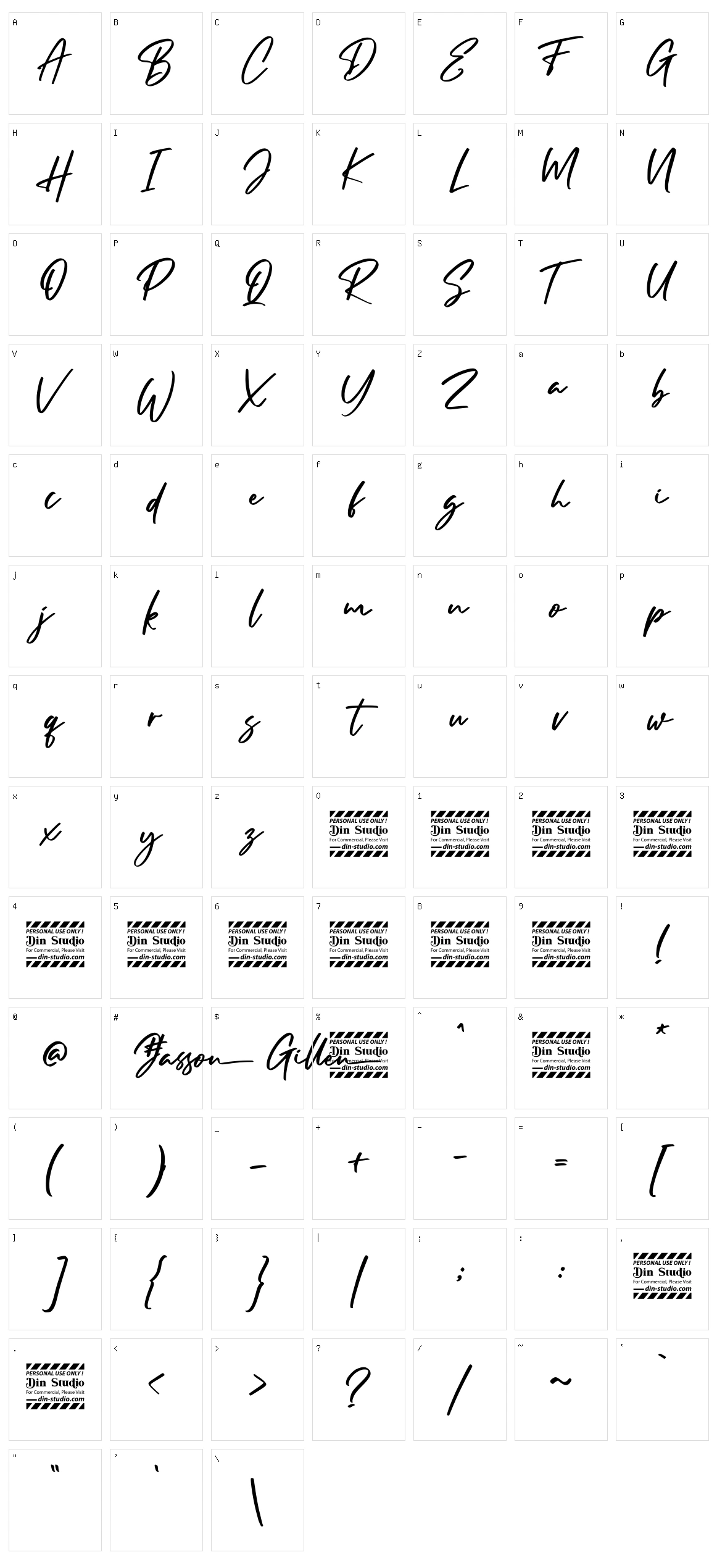
The free font Jasson Gillen is carefully designed by Din Studio, showcasing a thoughtful balance of creativity and usability and falls under the Script font style. When you download the ZIP file, it contains only 286.83 KB of font files, making it lightweight and quick to download. Please review the license details below to understand permitted usage and distribution rights. If license information is not available, we recommend using this font for personal projects only or contacting the author directly for commercial usage permissions.